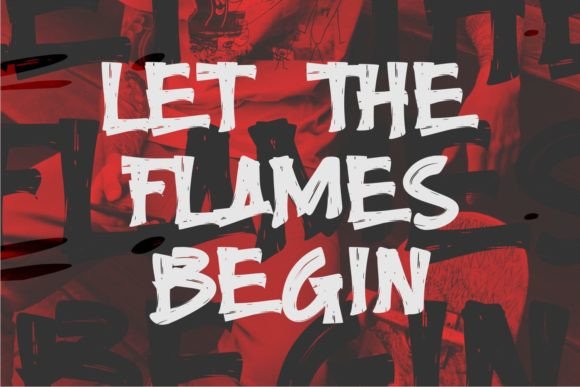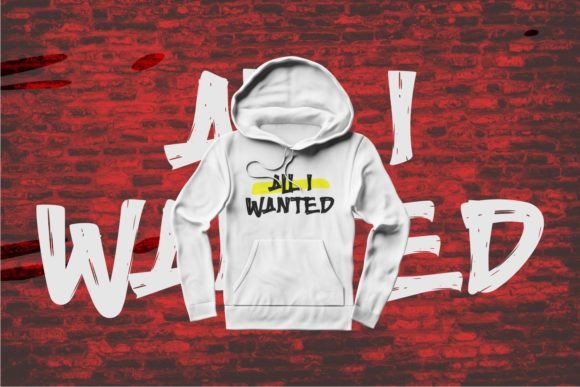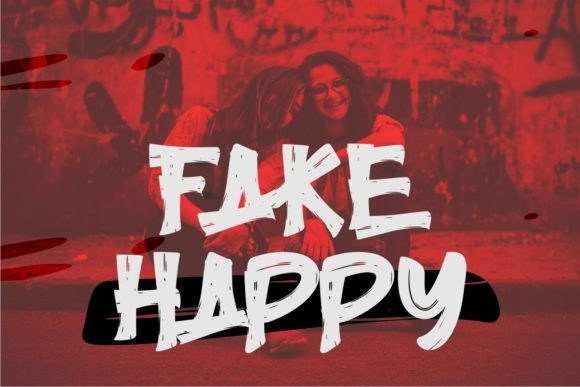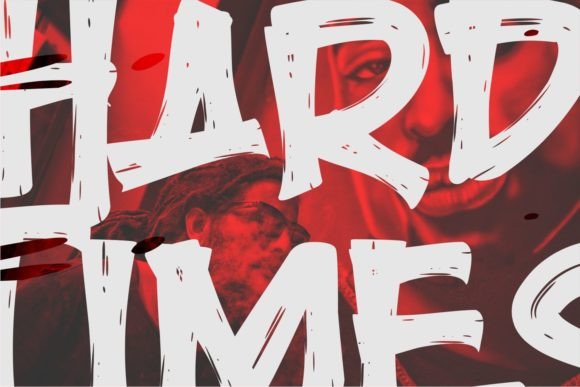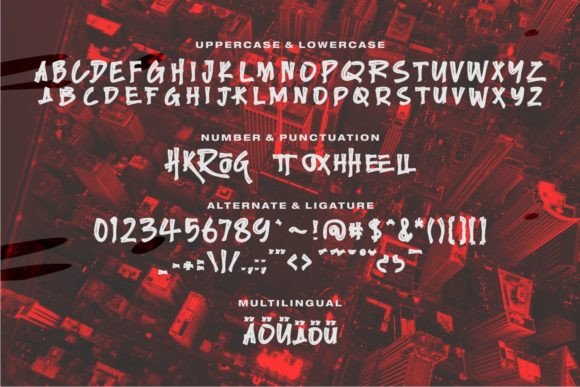
Introduction to Gogok Font
Gogok is a cool display font with a brush style.
It looks so beautiful on invitations like greeting cards, branding materials, business cards, quotes, posters, and more .
Key Features of Gogok Font